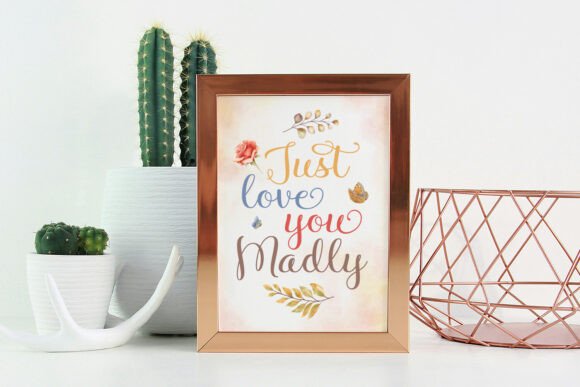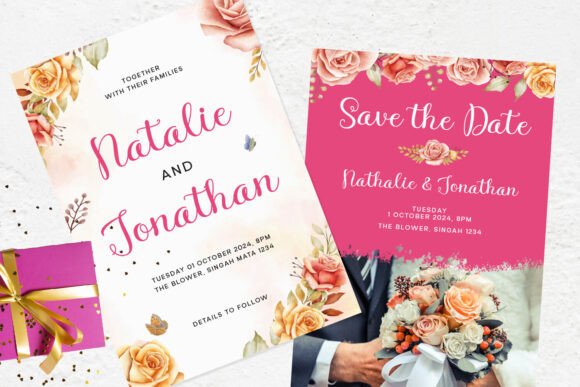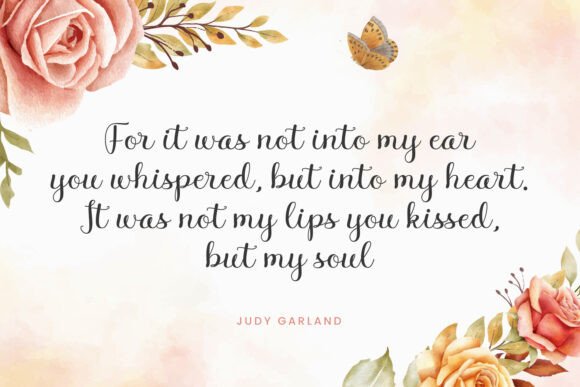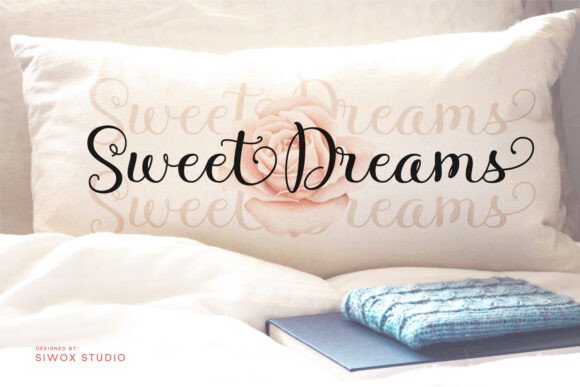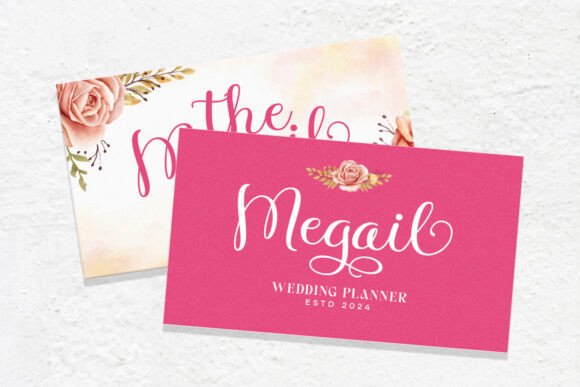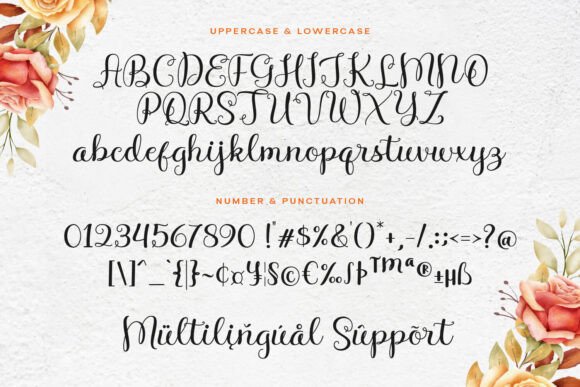
Introduction to Nurila Script Font
Nurila Script font feels equally charming and elegant.
It looks stunning on wedding invitations, thank you cards, quotes, greeting cards, logos, business cards and every other design which needs a handwritten touch It is also PUA encoded which means you can access all of the glyphs and swashes with ease.
Key Features of Nurila Script Font